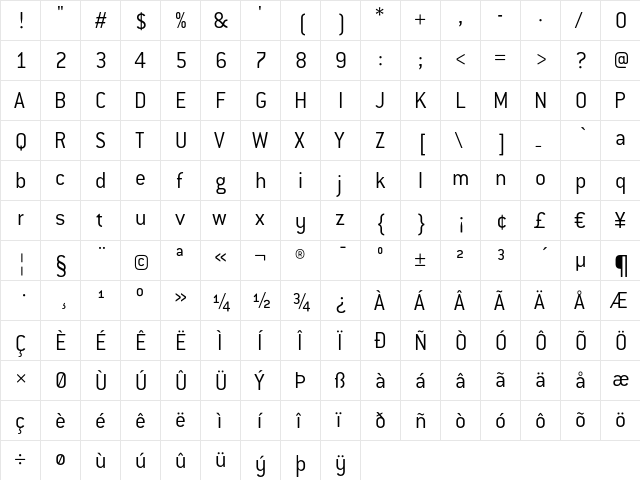
Conduit ITC Light Regular Font Preview
Design Context for Conduit ITC Light Typeface
Conduit ITC Light takes a measured approach to typography — its balanced proportions and neutral character make it a reliable workhorse for both digital and print work. Its slender proportions lend an understated elegance to any composition. The condensed width makes it efficient for tight spaces without sacrificing legibility.